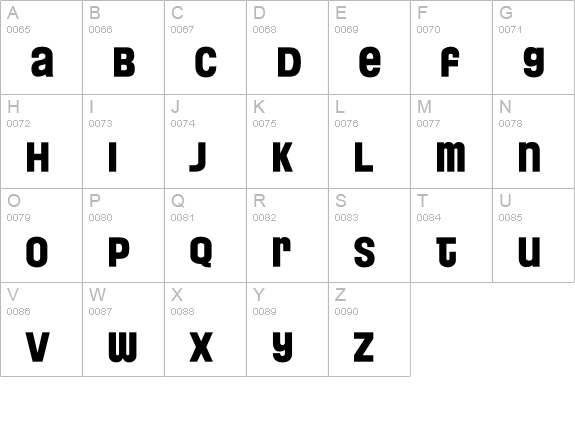
Florida Project Phase Two Font Details
Florida Project Phase Two font is a versatile and modern typeface that exudes elegance and sophistication. With its clean lines and contemporary aesthetic, this font is perfect for a wide range of design projects, from branding to editorial design and everything in between. The sleek and stylish letterforms of Florida Project Phase Two font make it a standout choice for designers looking to add a touch of class to their work. The best part? Florida Project Phase Two font is available for free download at FontsMarket.com, making it accessible to designers of all levels. Whether you're a seasoned professional or just starting out, this font is sure to elevate your designs and help you stand out from the crowd. Don't miss out on the opportunity to add Florida Project Phase Two font to your collection and take your projects to the next level. Download it today and unleash your creativity!